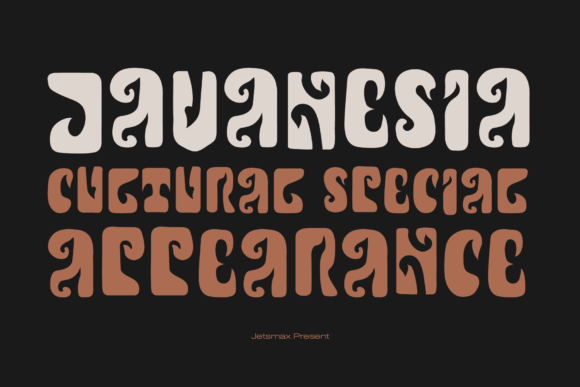
Indulge in the captivating world of Javanesia, a decorative font that will ignite your imagination and elevate your designs to new heights. Immerse yourself in a realm of playful and whimsical characters that dance across your digital canvas, captivating your audience from the very first glance. Javanesia's enchanting aura radiates through every letterform, transforming ordinary text into an extraordinary visual masterpiece. Let its playful spirit inspire your cover designs, unleashing a symphony of creativity that will leave an unforgettable mark.
With Javanesia in your font arsenal, you'll discover a boundless universe of possibilities. Its graceful curves and charming quirks will transform your designs into visual wonders, attracting attention wherever they go. Each character whispers tales of adventure and invites you to explore the uncharted territories of your imagination. Javanesia is not merely a font; it's a creative catalyst, a spark that ignites your artistic vision and sets your designs ablaze with originality. Embrace the allure of Javanesia and witness the transformation of your digital creations into captivating works of art.